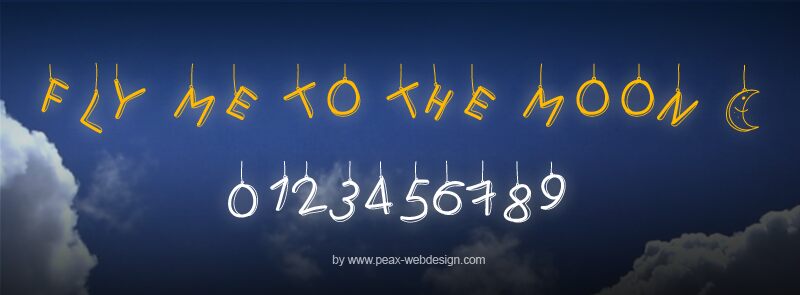
PW Fly Me to the Moon by Peax Webdesign is a free decorative display font whose letters appear to dangle from fine strings. The loose, uneven forms tilt independently, with rounded bends and changing stroke widths that make each character seem cut out and hung by hand. Small attachment loops at the top reinforce the mobile-like construction.
Posters gain a handmade centerpiece from this suspended lettering. Its playful motion also suits party invitations, music merchandise, and children's publishing, where the hanging letters can become a recurring cover motif.